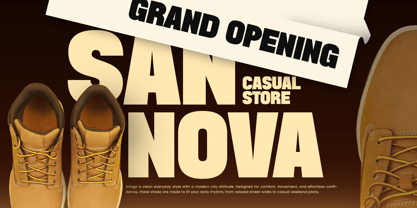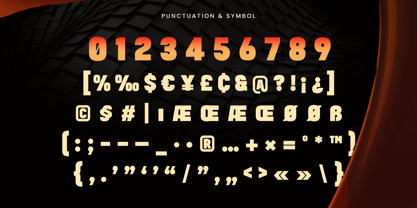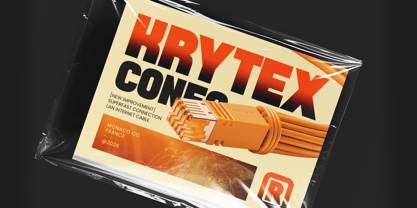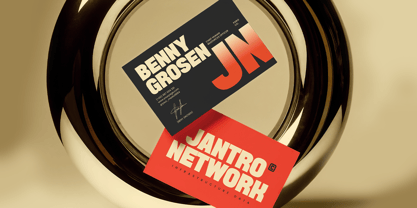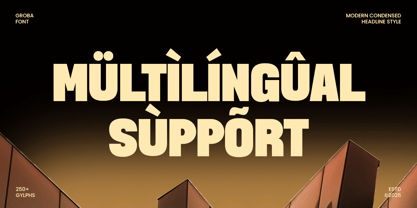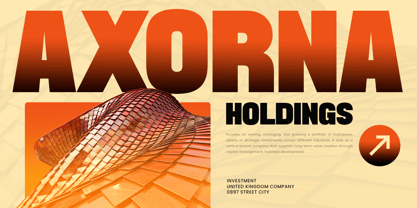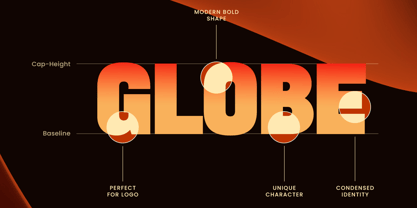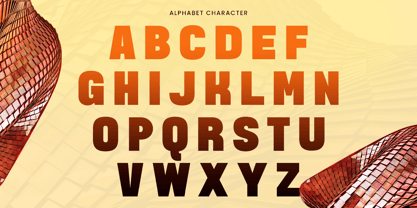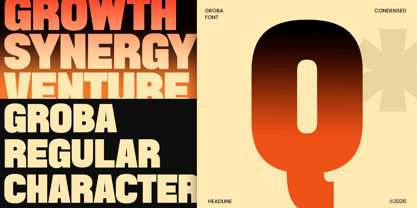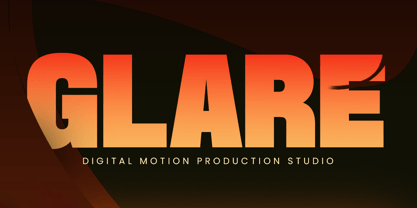
Groba
GROBA is a modern condensed headline font designed to deliver bold impact with a sleek, space-saving structure. With tall proportions, clean forms, and a confident visual rhythm, this typeface creates a strong modern tone that feels sharp, professional, and instantly attention-grabbing.
Built for headline-focused typography, GROBA works beautifully across posters, logos, wordmarks, editorial titles, website headers, packaging, labels, signage, presentations, social media graphics, and promotional visuals. Its condensed form helps maximize space while keeping every headline clear, strong, and visually polished across both digital and print layouts.
Whether you’re building a modern brand identity, creating bold campaign visuals, designing editorial headlines, or crafting sleek marketing assets, GROBA provides a condensed typographic foundation that makes every composition feel powerful, structured, and memorable.
Inspiration Behind GROBA
GROBA is inspired by contemporary headline typography and modern condensed branding—where vertical rhythm, clean spacing, and bold structure create instant visual hierarchy. The design focuses on strong readability and sharp proportions to support impactful titles, posters, and brand systems with a sleek modern edge.
GROBA Font Features:
• Modern condensed letterforms optimized for headline typography
• Tall, clean structure for bold titles and strong visual hierarchy
• High readability for posters, branding, and promotional layouts
• Space-saving proportions for compact yet impactful compositions
• All-caps characters, numerals, and punctuation included
• OpenType features for polished professional typesetting
Perfect For
• Headlines, titles, posters, and editorial typography
• Logos, wordmarks, and modern brand identity systems
• Packaging, labels, signage, and bold promotional design
• Website headers, social media graphics, and digital banners
• Presentations, campaigns, and sleek marketing materials
Multilingual Support
Make every title stand tall with GROBA—a modern condensed headline font built for bold, sleek visual impact. ✨